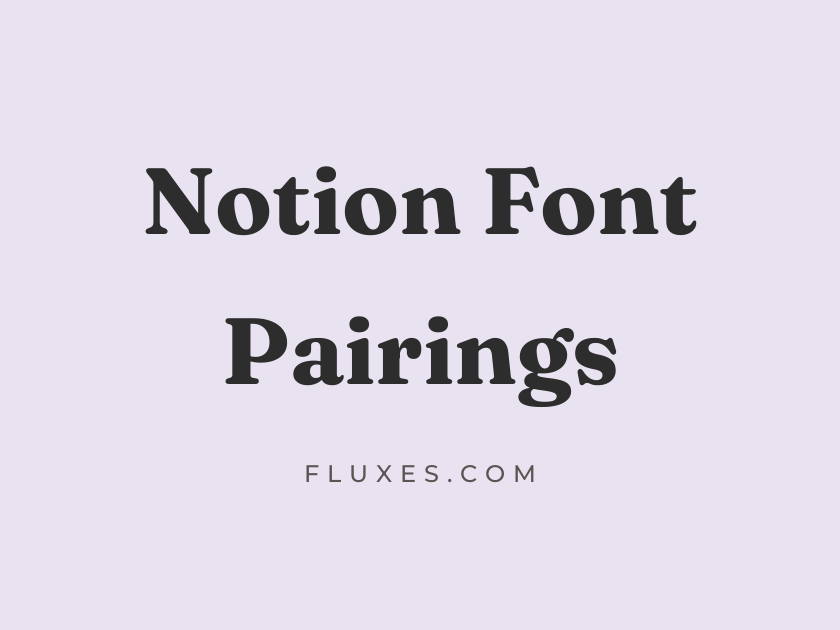
36 Best Font Pairings for Notion
Notion pages live somewhere between a document and a product interface, so the type has to do double duty: readable in dense wikis, confident in dashboard headers, and calm enough not to fight the blocks, toggles, and embeds around it. The pairings below cover the range of moods people actually build in Notion, from minimal team wikis to editorial personal sites, using only fonts freely available on Google Fonts. Each combination balances a distinct heading font against a body font chosen for compatible proportions, so headers and paragraphs read as one considered system rather than two unrelated typefaces.
Fraunces + Inter
A neutral, highly legible sans that keeps long notes and checklists easy to scan.
Fraunces brings warmth and a little editorial personality to section headers, while Inter’s plain, screen-tuned letterforms handle the bulk of everyday notes without drawing attention to themselves. This is a dependable choice for personal knowledge bases where you want headers to feel crafted but body text to disappear.
Space Grotesk + Source Serif 4
Text set in a readable serif that keeps status updates comfortable over long sessions.
Space Grotesk’s squared, slightly technical shapes suit dashboard-style headers, and Source Serif 4 slows the eye down just enough for paragraph reading. The contrast between geometric heading and traditional serif body gives structured Notion pages a clear visual hierarchy.
Libre Baskerville + Work Sans
Body copy that stays crisp and neutral across long reading lists and notes.
Libre Baskerville was designed for text but works well oversized as a header, giving pages a literary tone that Work Sans then carries through in an unobtrusive, modern voice. Good for book logs, research archives, and any wiki meant to feel like a personal library.
Sora + Karla
A friendly grotesk that makes meeting notes feel approachable rather than clinical.
Sora and Karla share rounded terminals and open apertures, so headers and body text feel like relatives rather than strangers. This pairing suits team wikis that want to feel welcoming without losing structure.
Playfair Display + PT Sans
Straightforward body text that lets the high-contrast headline do the talking.
Playfair Display’s dramatic thick-thin strokes work best in short bursts, which is exactly what Notion headers are, and PT Sans keeps the surrounding paragraphs sturdy and legible. It is a strong fit for brand documentation and pages meant to feel a bit more designed.
Archivo + Merriweather
A sturdy serif built for extended reading in reference material and documentation.
Flipping the usual formula, a grotesk header in Archivo paired with a serif body in Merriweather gives technical documentation a confident opening line and a comfortable reading experience underneath. This works particularly well in handbooks with long explanatory sections.
DM Serif Display + DM Sans
Clean body text designed as part of the same type family as the headline above.
These two were built together as a superfamily, so their proportions, spacing, and mood match by design rather than by trial and error. It is a low-risk choice for anyone who wants guaranteed harmony without hunting for a matching partner.
Poppins + Noto Sans
Body text with broad language support for teams working across multiple scripts.
Poppins’ geometric circles make short header phrases feel upbeat and modern, while Noto Sans quietly handles the heavy lifting of multilingual body text. International or distributed teams benefit from this pairing’s practical range.
Bitter + Nunito Sans
Soft, rounded body copy that keeps support articles feeling calm and clear.
Bitter’s slab serifs give headers a grounded, dependable feel appropriate for support and process documentation, and Nunito Sans keeps the explanatory text underneath easy on the eye. The pairing avoids feeling cold, which matters in customer-facing knowledge bases.
IBM Plex Serif + IBM Plex Sans
Technical body copy from the same family, tuned for clarity in dense documentation.
Both fonts share IBM Plex’s underlying grid and spacing logic, so switching between serif headers and sans body text never feels jarring. This is a natural fit for engineering wikis and technical specs where consistency matters more than flourish.
Newsreader + Inter
A neutral sans that lets extended research writing stay easy to follow.
Newsreader was built for serious reading, and its editorial character makes a good anchor for headers on pages full of citations and analysis, with Inter keeping the surrounding paragraphs unfussy. It suits academic notes, essays, and research databases.
Zilla Slab + Karla
Keep the header font to titles and major section breaks; using it for every sub-heading dilutes the contrast that makes the pairing work. Reserve display serifs like Fraunces or Playfair Display for the top of the page.
If a workspace is shared across a team, favor pairings with wide language and weight support, such as IBM Plex or Noto Sans, so the system holds up as content and contributors grow.